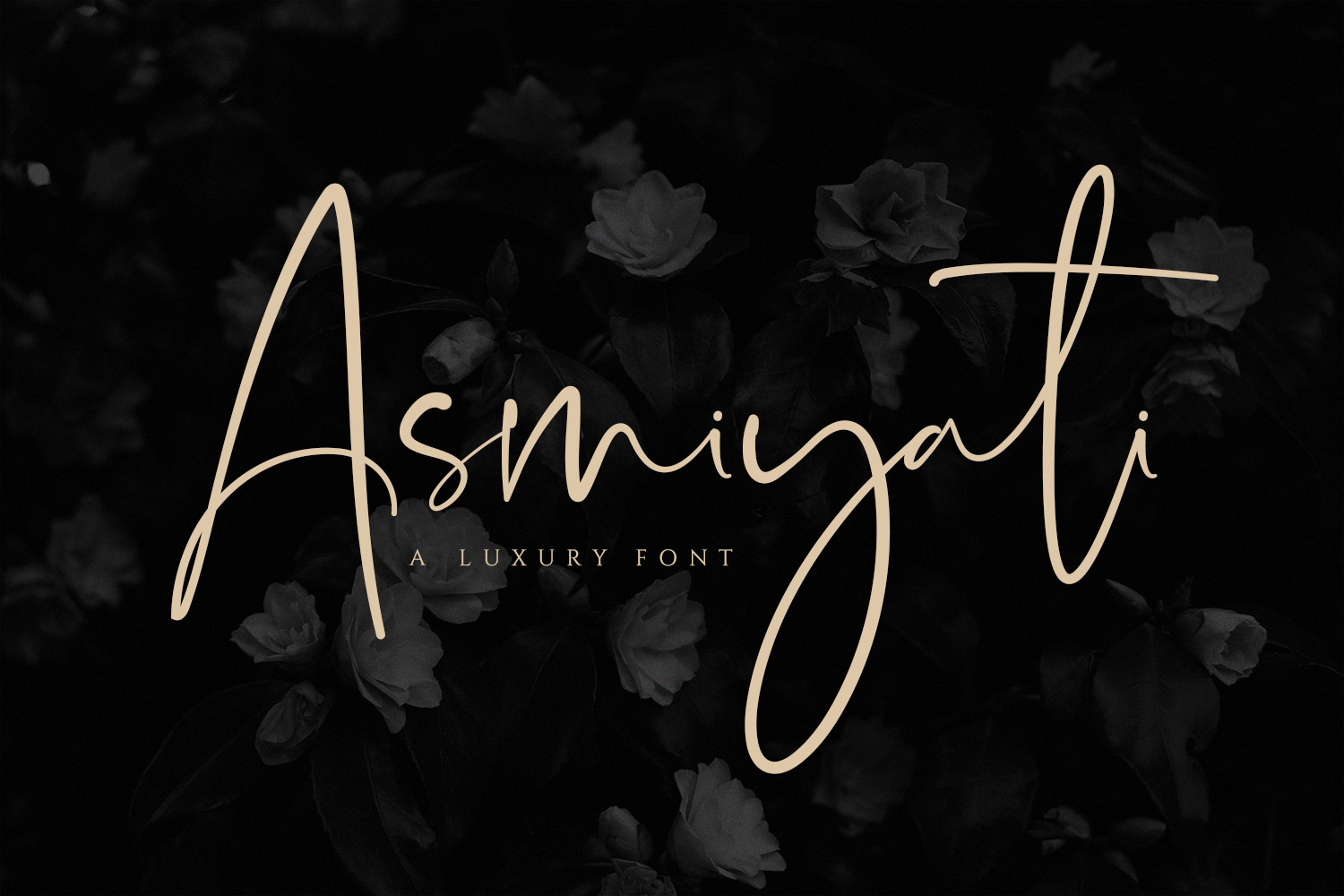
Asmiyati | A Luxury Script Font
Asmiyati Script Font - A Handwritting script and unique character! it's perfect for logos, name card, magazine layouts, invitations, headers, or even large-scale artwork.
1. Asmiyati - A clean and Italic version, script font including upper & lowercase characters, numerals and more of symbols.